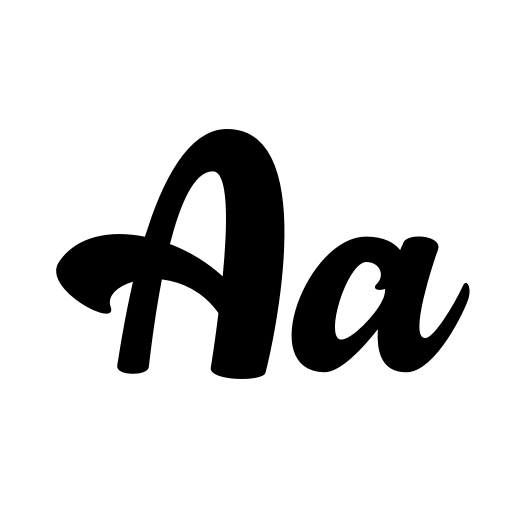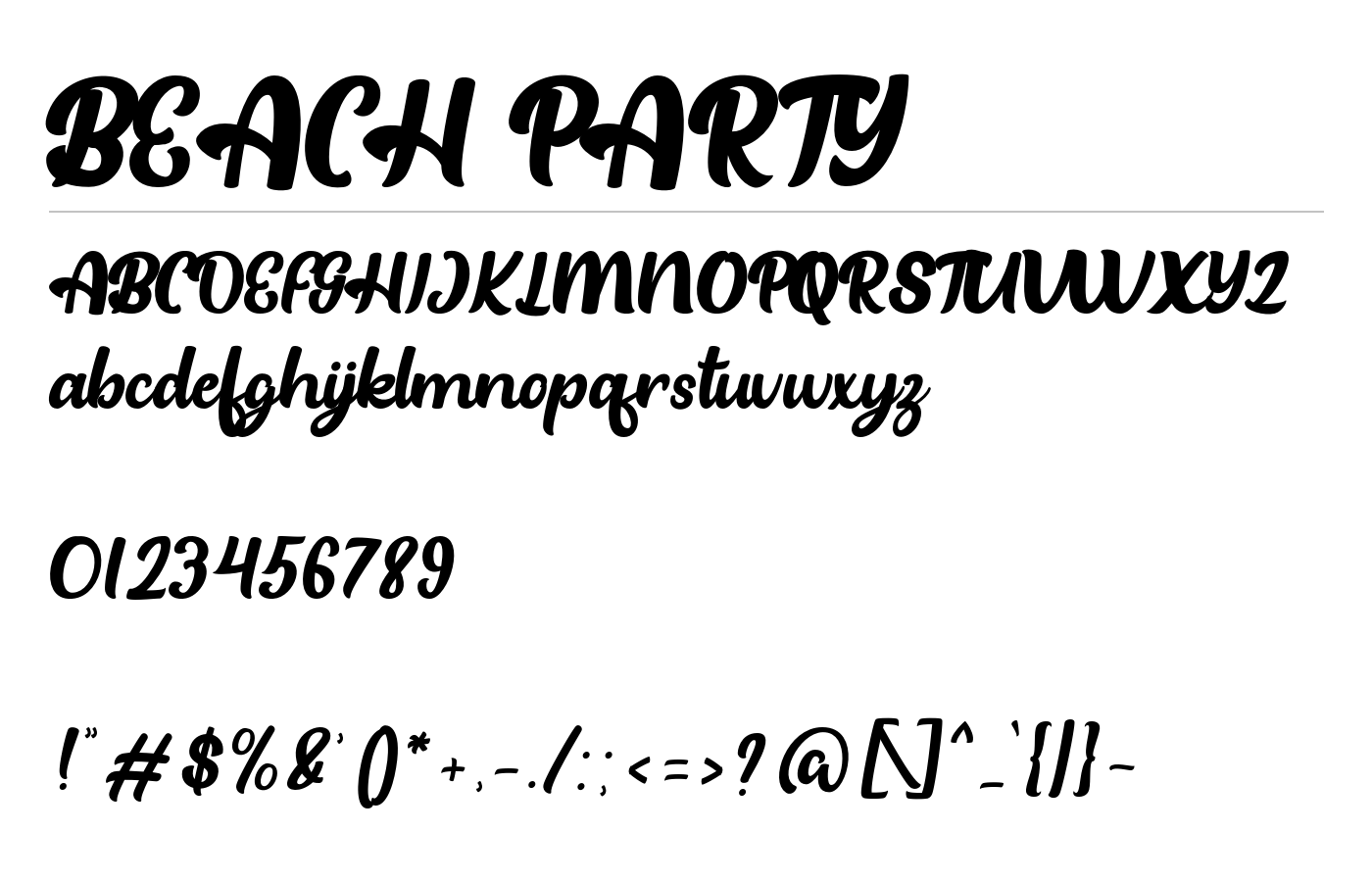
Beach Party is a lively script font with a casual, handwritten feel that brings a fun, energetic vibe to any design. Its smooth, flowing strokes and moderate contrast make it perfect for playful branding, party invitations, and youth-oriented projects that want to convey a sense of warmth and friendliness. This font works best in headlines, logos, and packaging where its cheerful personality can truly stand out.
BEACH PARTY Font
About BEACH PARTY Font